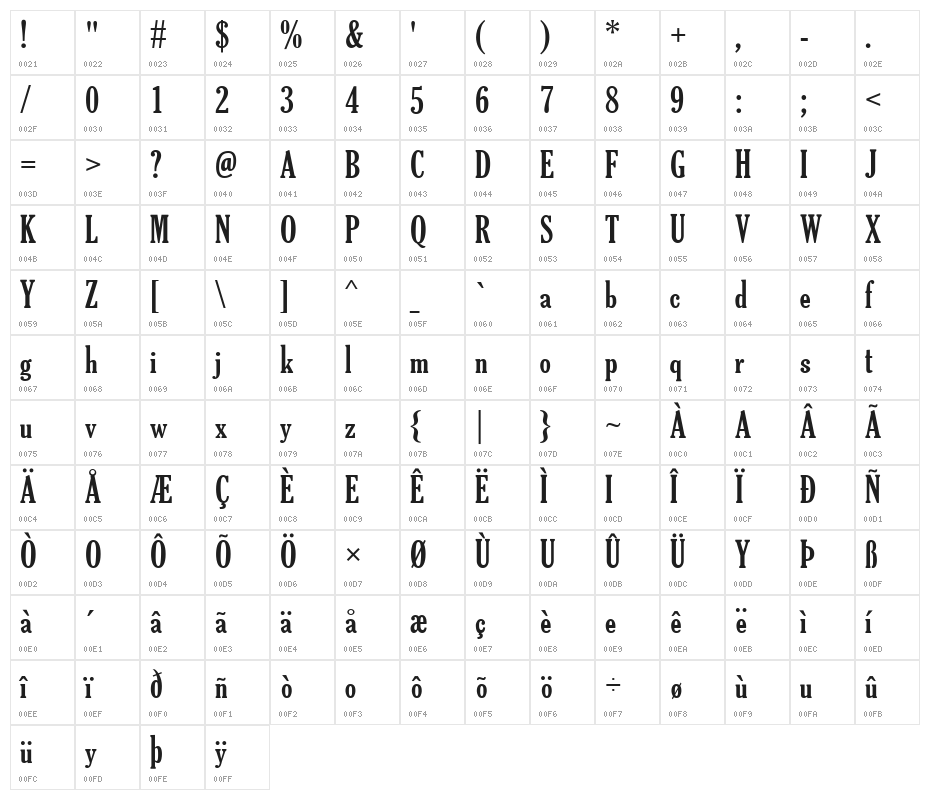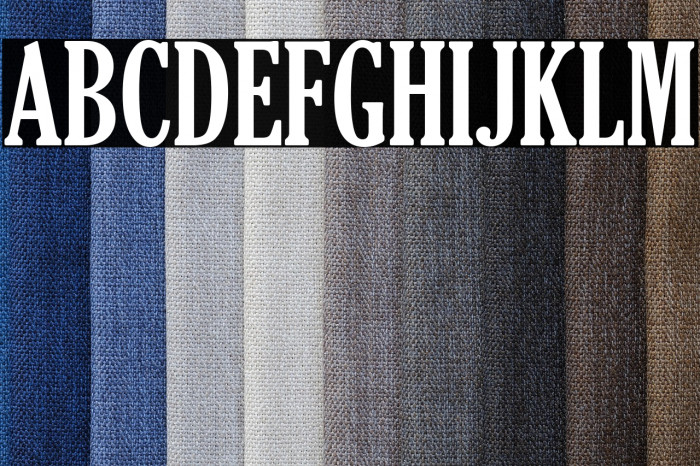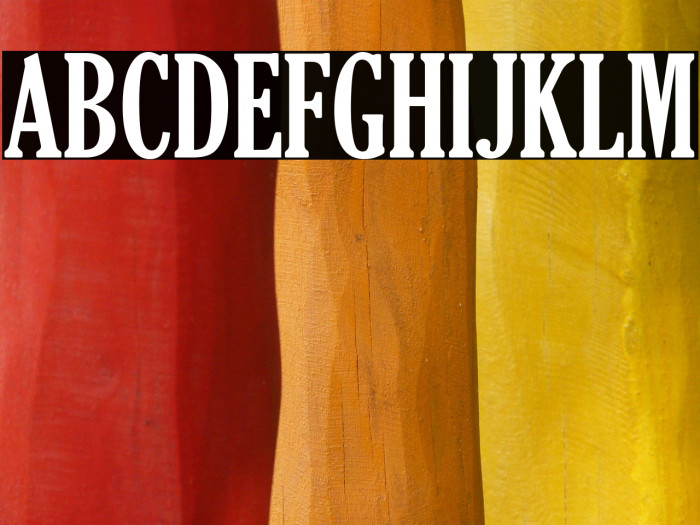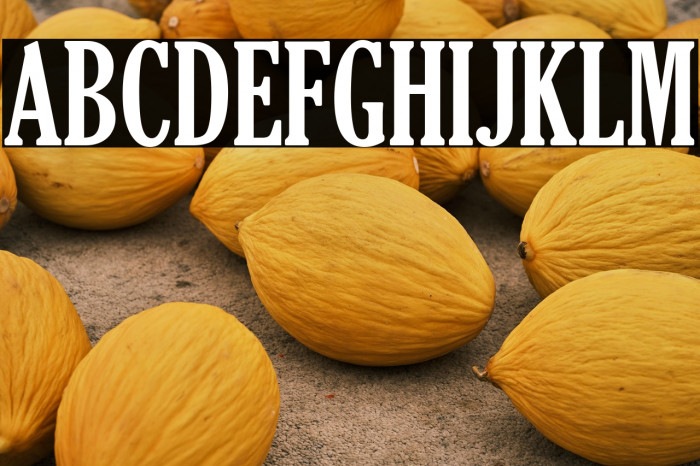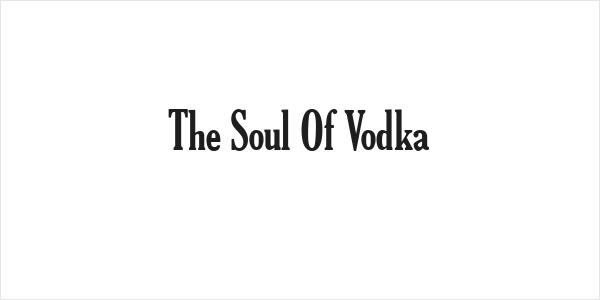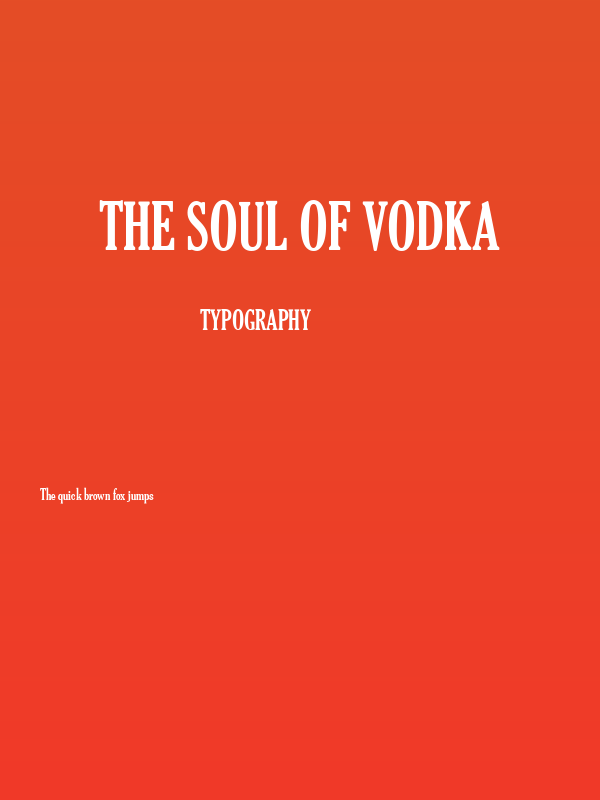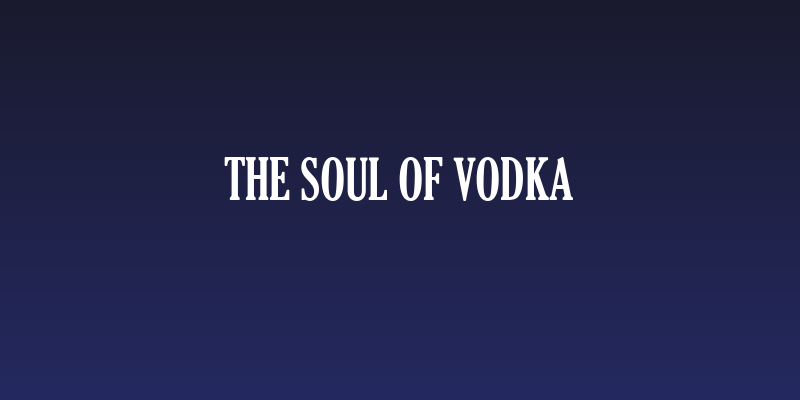
The Soul Of Vodka Font
The Soul Of Vodka Description
This font features a bold and striking serif style with high contrast between thick and thin strokes, giving it a dramatic and impactful appearance. The uppercase letters are tall and commanding, while the lowercase letters maintain a consistent style with slightly rounded edges. The numerals are clear and distinct, matching the overall boldness of the alphabet. Special characters are designed with the same attention to detail, ensuring they integrate seamlessly with the text. The font's strong presence makes it suitable for attention-grabbing headlines and titles.